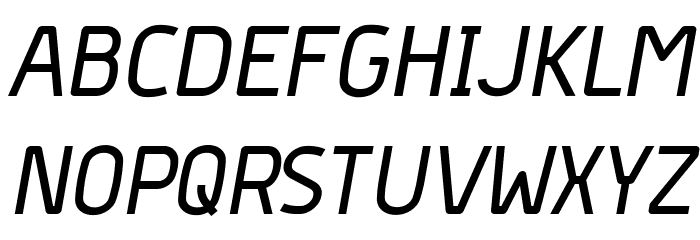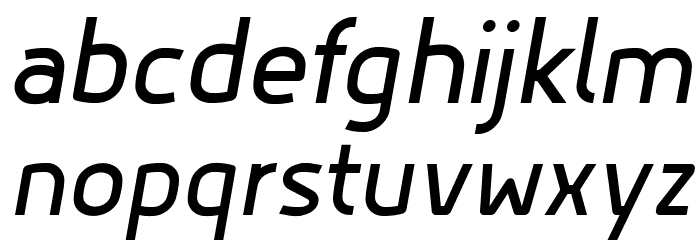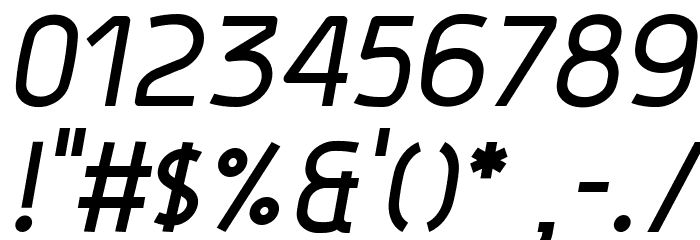
Hyperjump Bold Oblique Font
This font exhibits a bold and oblique style, characterized by its slanted and dynamic appearance. The uppercase and lowercase letters are designed with a modern flair, featuring clean lines and a slight forward tilt that adds a sense of motion and energy. The numerals are consistent with the overall style, maintaining the same boldness and slant. Special characters are well-integrated, ensuring versatility in various applications. The font's design is sleek and contemporary, making it suitable for projects that require a strong visual impact.
A bold, oblique font with a modern and dynamic style.
- Proposed Projects: Ideal for branding, advertising, headlines, and digital media projects that require a bold and modern aesthetic.
- Use Case: Headlines, Logos, Advertising